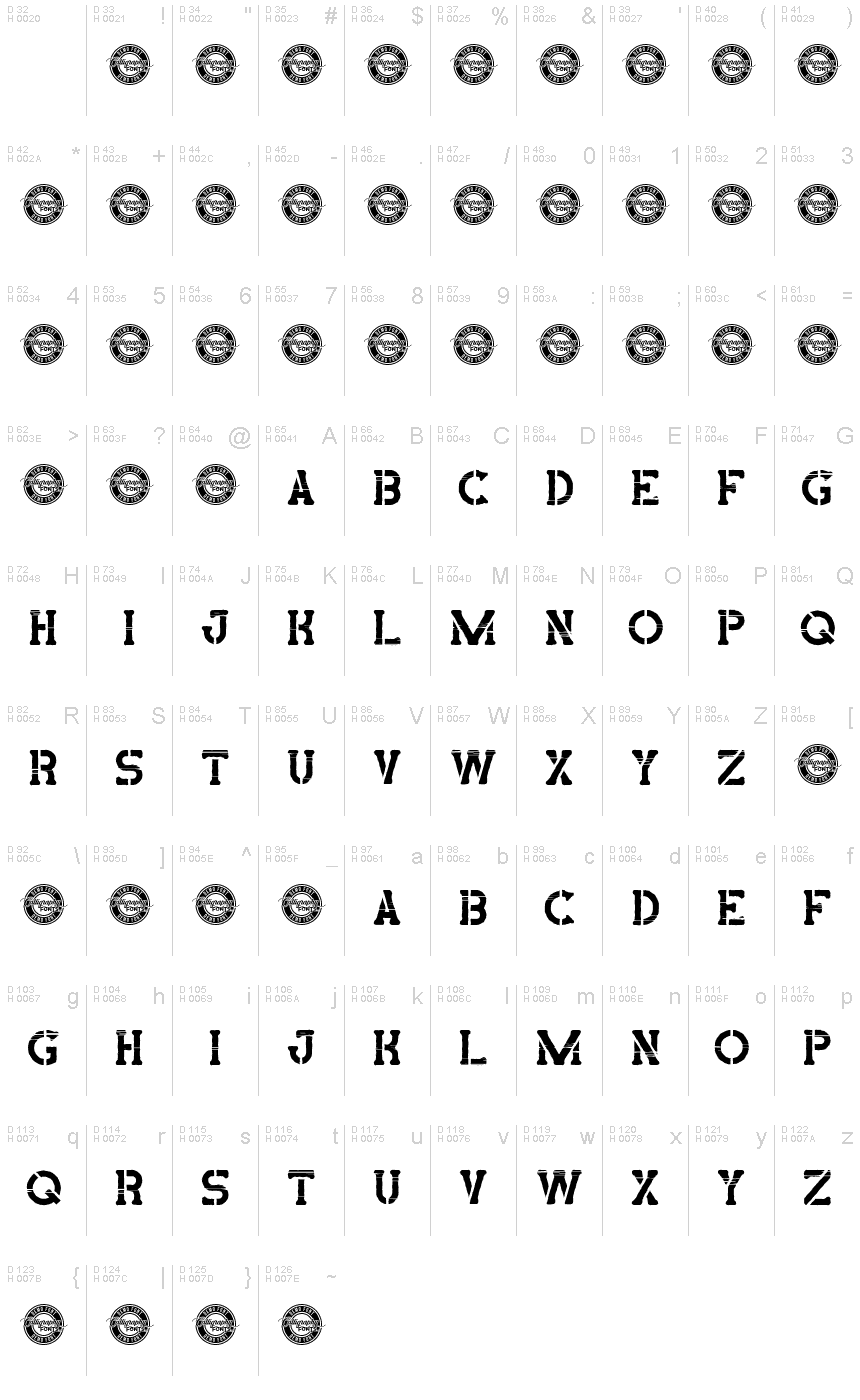
Paid Stamp font by Calligraphy Fonts is the perfect choice for any project that requires a bold and eroded display typeface. This unique font style is suitable for a wide range of projects, including invitations, flyers, posters, and packaging designs. The bold weight of the Paid Stamp font adds a sense of strength and confidence to your text while the eroded style gives it an edgy and vintage feel. Whether you're looking to create a retro-inspired design or something with a modern twist, Paid Stamp is an excellent choice that will make your content stand out from the crowd.